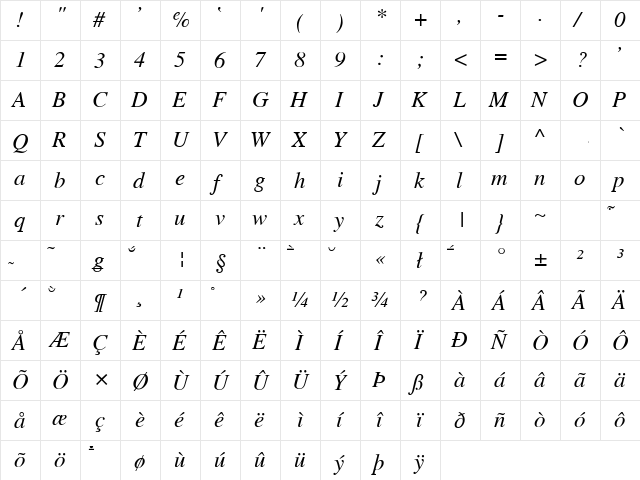
Wulfila NormalItalic
Design Context for Wulfila Typeface
Wulfila takes a measured approach to typography — its balanced proportions and neutral character make it a reliable workhorse for both digital and print work. Its italic angle brings a sense of urgency and motion to the letterforms.
Pro Tip: Try Wulfila for annotation and caption copy alongside an upright companion — the contrast in angle creates a dynamic but ordered typographic system.